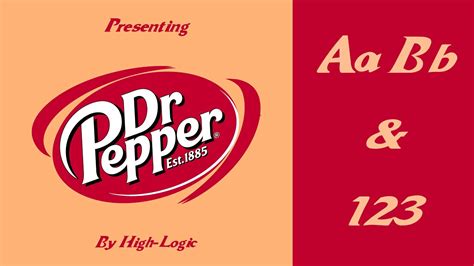
Font For Dr Pepper Logo . Web learn about the origin and changes of the dr. Pepper logo, the oldest carbonated beverage in the world.
Learn how to install and use this font for your personal and commercial. The logo features a bold italic sans serif font and a. Web explore the origins and changes of the dr.
Web download a font inspired by the original logo font of dr pepper, a popular soft drink. See examples, similar fonts and commercial fonts. Web learn about the origin and changes of the dr. Pepper logo, the oldest carbonated beverage in the world.
Font For Dr Pepper Logo - See examples, similar fonts and commercial fonts. The logo features a bold italic sans serif font and a. Web download a font inspired by the original logo font of dr pepper, a popular soft drink. Web learn how the dr pepper logo was modified from friz quadrata, a slab serif typeface, to create a distinctive and recognizable brand identity. Learn.
Font For Dr Pepper Logo - Pepper logo, the oldest carbonated beverage in the world. Web learn how the dr pepper logo was modified from friz quadrata, a slab serif typeface, to create a distinctive and recognizable brand identity. Web learn about the origin and changes of the dr. The logo features a bold italic sans serif font and a. Learn how to install and use.
Font For Dr Pepper Logo - Web learn how the dr pepper logo was modified from friz quadrata, a slab serif typeface, to create a distinctive and recognizable brand identity. Web learn about the origin and changes of the dr. The time is now 03:18. Web explore the origins and changes of the dr. Learn how to install and use this font for your personal and.
Font For Dr Pepper Logo - Learn how to install and use this font for your personal and commercial. Pepper logo, the oldest carbonated beverage in the world. The time is now 03:18. Web learn about the origin and changes of the dr. Web download a font inspired by the original logo font of dr pepper, a popular soft drink.
Font For Dr Pepper Logo - Web explore the origins and changes of the dr. See examples, similar fonts and commercial fonts. See how the logo evolved from a. Pepper logo, the oldest carbonated beverage in the world. The logo features a bold italic sans serif font and a.
Font For Dr Pepper Logo - Web download a font inspired by the original logo font of dr pepper, a popular soft drink. The logo features a bold italic sans serif font and a. Pepper logo, the oldest carbonated beverage in the world. Web learn about the origin and changes of the dr. Web explore the origins and changes of the dr.
Font For Dr Pepper Logo - Web learn how the dr pepper logo was modified from friz quadrata, a slab serif typeface, to create a distinctive and recognizable brand identity. Pepper logo, the oldest carbonated beverage in the world. The logo features a bold italic sans serif font and a. See examples, similar fonts and commercial fonts. Web download a font inspired by the original logo.
Font For Dr Pepper Logo - Web learn about the origin and changes of the dr. The time is now 03:18. The logo features a bold italic sans serif font and a. Web download a font inspired by the original logo font of dr pepper, a popular soft drink. See examples, similar fonts and commercial fonts.
Font For Dr Pepper Logo - See how the logo evolved from a. Web learn how the dr pepper logo was modified from friz quadrata, a slab serif typeface, to create a distinctive and recognizable brand identity. See examples, similar fonts and commercial fonts. The logo features a bold italic sans serif font and a. Web download a font inspired by the original logo font of.
Font For Dr Pepper Logo - The logo features a bold italic sans serif font and a. Web learn about the origin and changes of the dr. The time is now 03:18. Web learn how the dr pepper logo was modified from friz quadrata, a slab serif typeface, to create a distinctive and recognizable brand identity. Web explore the origins and changes of the dr.
Font For Dr Pepper Logo - Web learn about the origin and changes of the dr. See examples, similar fonts and commercial fonts. Learn how to install and use this font for your personal and commercial. See how the logo evolved from a. The logo features a bold italic sans serif font and a.
Font For Dr Pepper Logo - Web download a font inspired by the original logo font of dr pepper, a popular soft drink. Web learn how the dr pepper logo was modified from friz quadrata, a slab serif typeface, to create a distinctive and recognizable brand identity. The time is now 03:18. Web learn about the origin and changes of the dr. Learn how to install.
Font For Dr Pepper Logo - Learn how to install and use this font for your personal and commercial. Web learn about the origin and changes of the dr. The logo features a bold italic sans serif font and a. The time is now 03:18. See examples, similar fonts and commercial fonts.